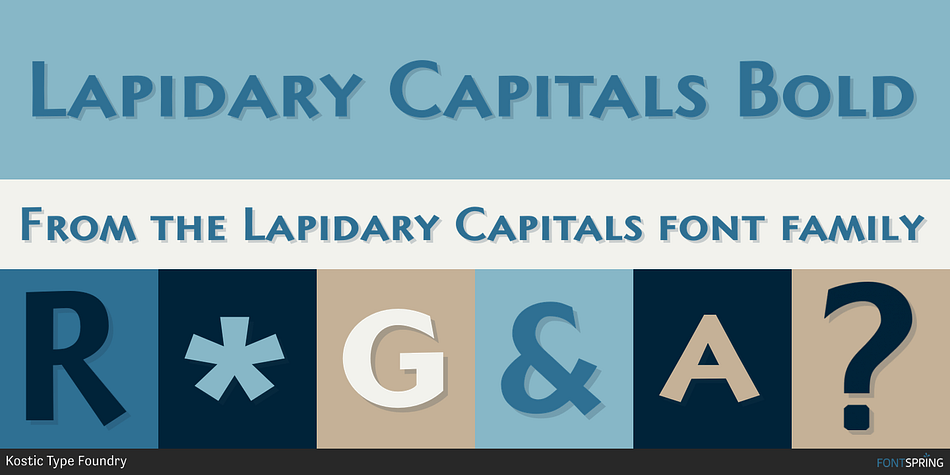
Lapidary Capitals Bold
Lapidary Capitals is a display sans font family. This typeface has two styles and was published by Kostic Type Foundry.
Based on Roman lapidary writing from 2nd century BC.